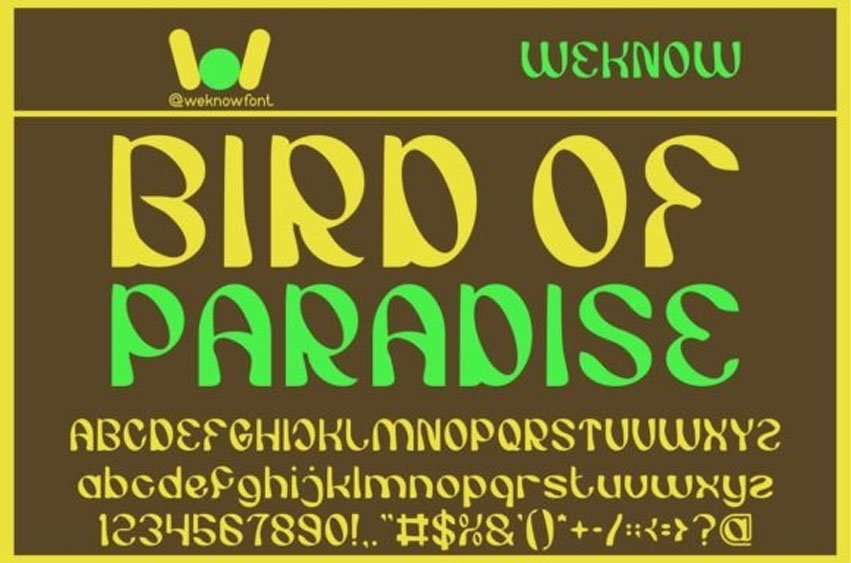
Bird of Paradise Font is an elegant display font ideal for logos, logotypes, headlines, corporate identity, brand identity, the apparel industry, posters, music, movies, games, magazines, books, comics, cartoons, YouTube, Instagram, websites, or any of your creative design projects.